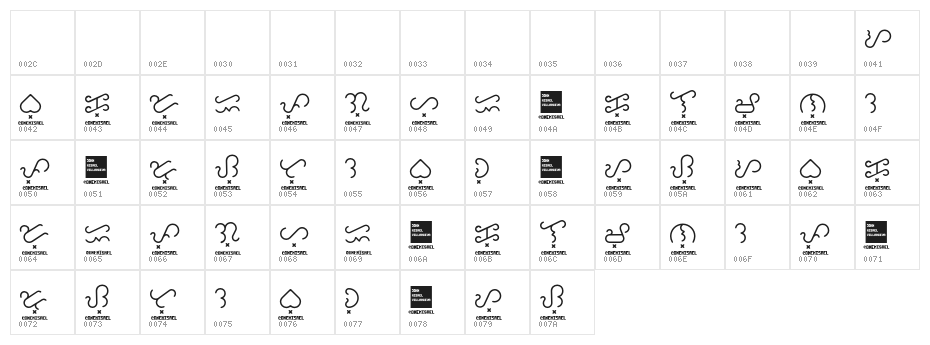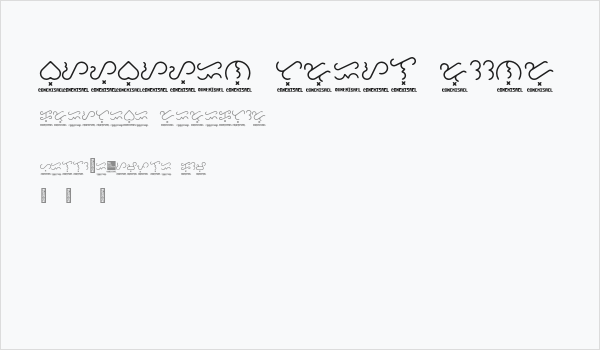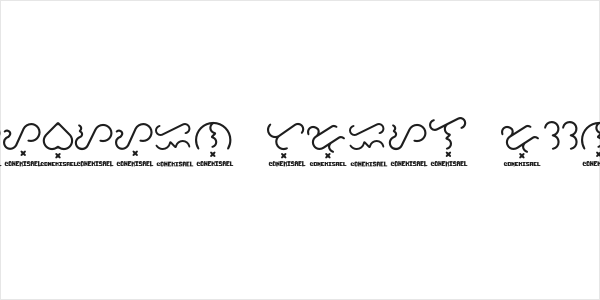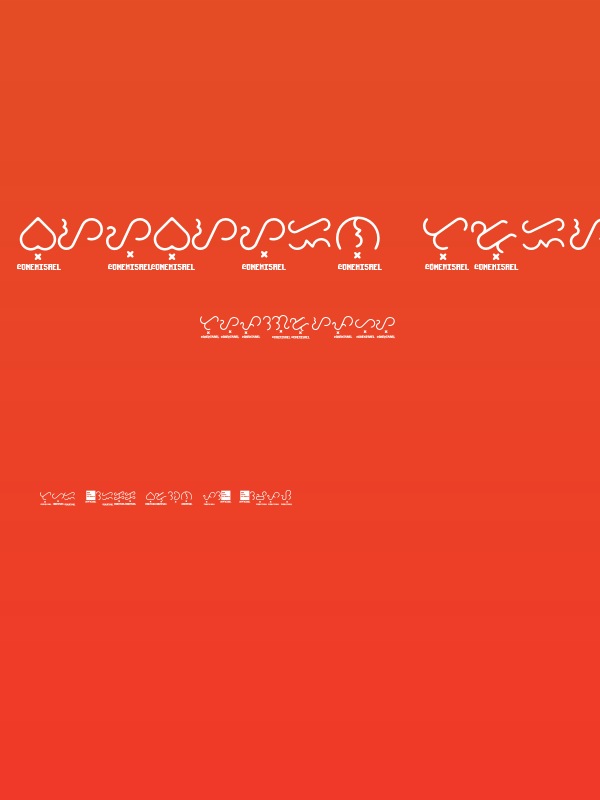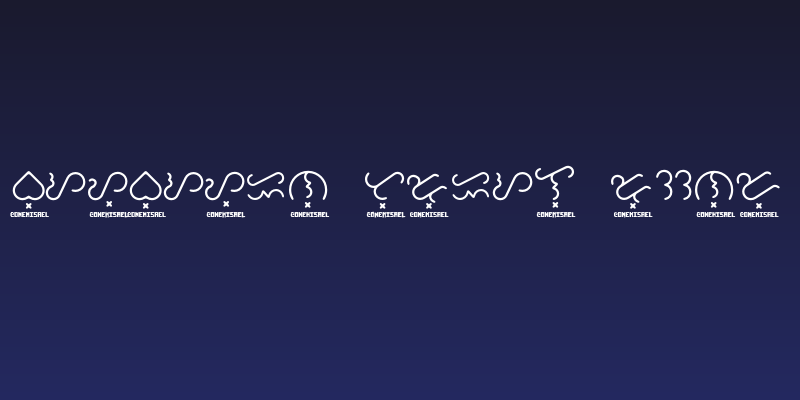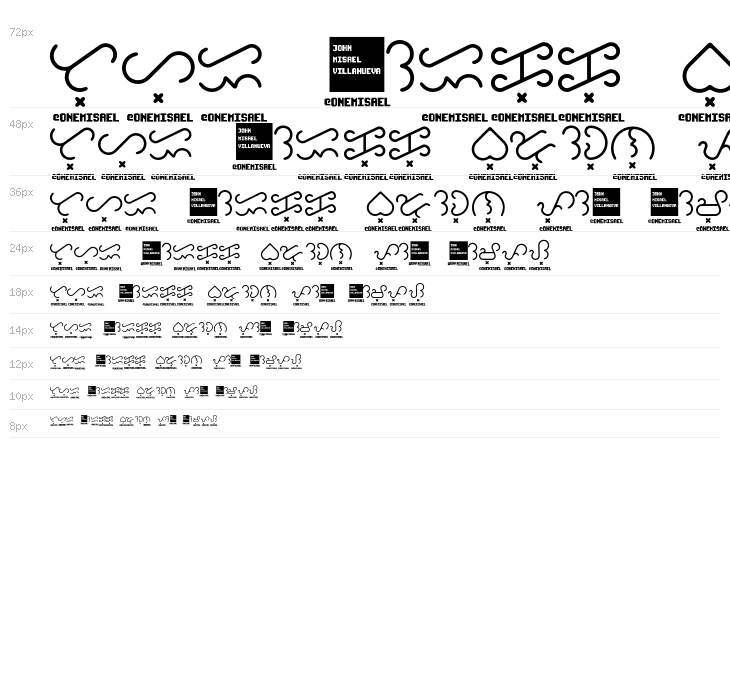
Baybayin Trial Round Font
Baybayin Trial Round Description
This script is a modern interpretation of the ancient Baybayin script, characterized by its smooth, flowing curves and distinct, rounded shapes. Each character is crafted with a sense of fluidity, maintaining the traditional aesthetic while incorporating a contemporary twist. The strokes are bold and consistent, providing a clear and legible appearance that is both artistic and functional. This font captures the essence of Baybayin with a modern flair, making it suitable for various creative applications. Its unique style is perfect for projects that aim to blend cultural heritage with modern design elements.
| Use Case | Logos, Artistic designs, Cultural projects |
| Proposed Projects | Ideal for cultural projects, educational materials, artistic designs, and branding that seeks to incorporate traditional Filipino elements. |